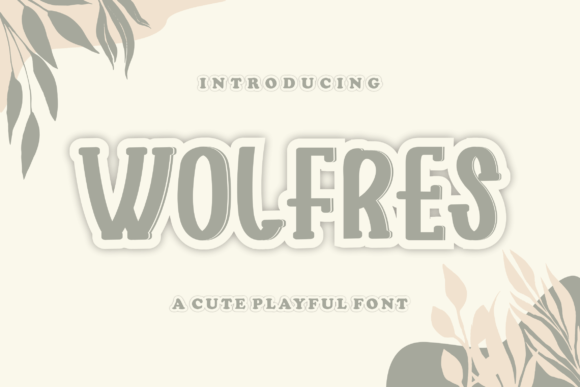
Unleash the Enchanting Charm of Wolfres Font: A Timeless Serif Masterpiece for Comic Lettering
In the realm of typography, where words dance and letters intertwine, there exists a font that captures the essence of elegance, modernity, and timeless beauty: Wolfres Font. This captivating serif font, crafted with meticulous precision by the renowned prayoga_std, is a symphony of curves and lines, leaving an indelible mark on your creative endeavors.
With its graceful serifs and alluring curves, Wolfres Font exudes an air of sophistication, making it the perfect choice for those seeking to elevate their designs and leave a lasting impression. Its versatility knows no bounds, adapting seamlessly to a myriad of projects, from personal signatures and elegant stationery to striking logos and captivating wedding invitations.
Immerse yourself in the boundless possibilities of Wolfres Font and witness the transformation of your creative visions into breathtaking realities. Let your imagination soar as you explore the font's myriad applications, from typography quotes that resonate with depth and emotion to magazine covers that command attention and book covers that beckon readers with their enchanting allure.
Website headers adorned with Wolfres Font radiate an aura of professionalism and sophistication, while clothing designs infused with its timeless charm become wearable works of art. Branding and packaging designs take on a new level of distinction, exuding an unforgettable elegance that captivates the senses.
Wolfres Font is more than just a collection of letters; it's an artistic masterpiece that breathes life into your creative pursuits. Its versatility extends beyond the digital realm, gracing physical products with its refined beauty. From clothing and accessories to home décor and beyond, Wolfres Font adds a touch of sophistication and timeless charm to every creation.
Embrace the allure of Wolfres Font and embark on a journey of creativity and self-expression. Let your designs blossom with elegance, your words dance with grace, and your imagination soar to new heights. Experience the transformative power of Wolfres Font and unlock the endless possibilities that await you.